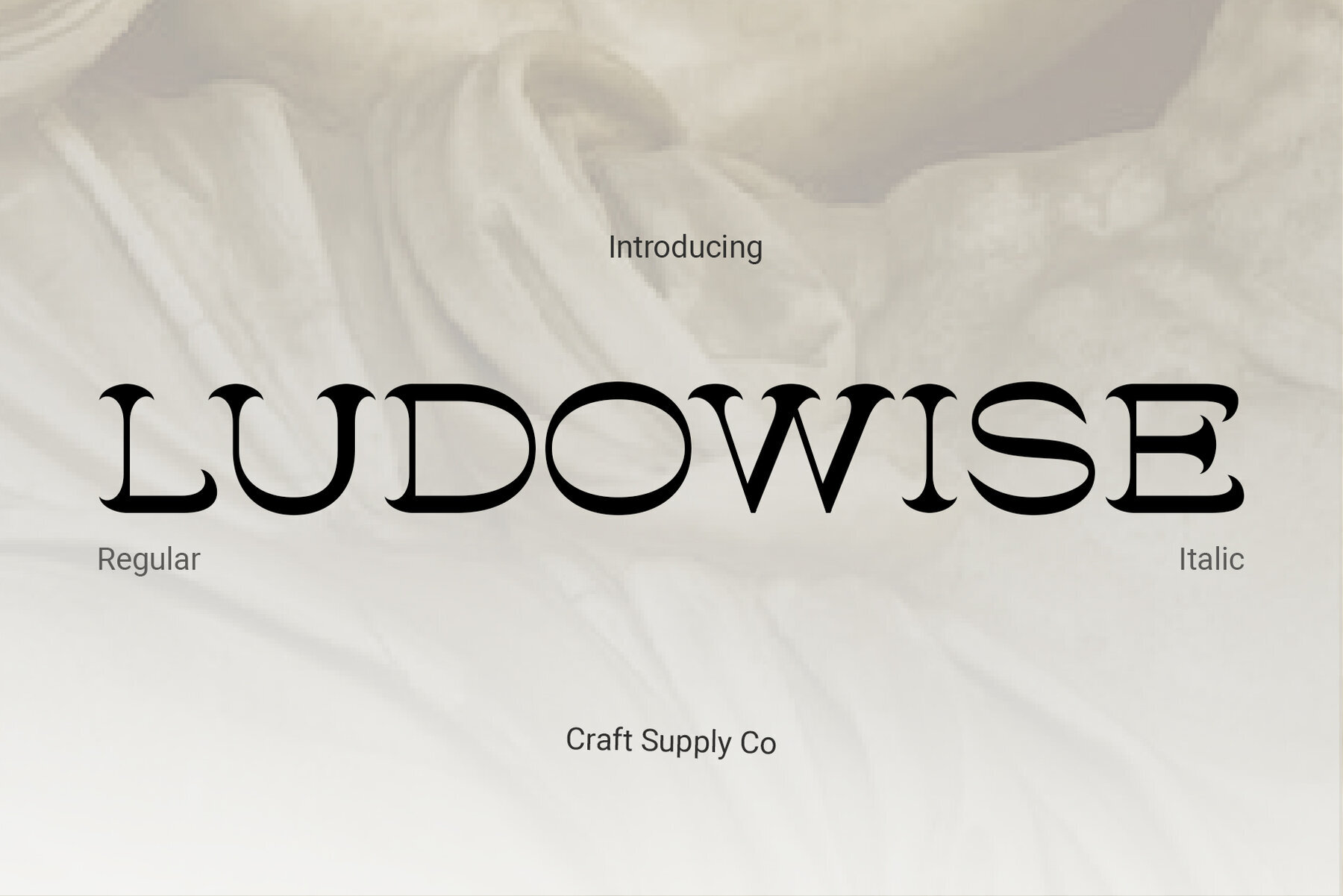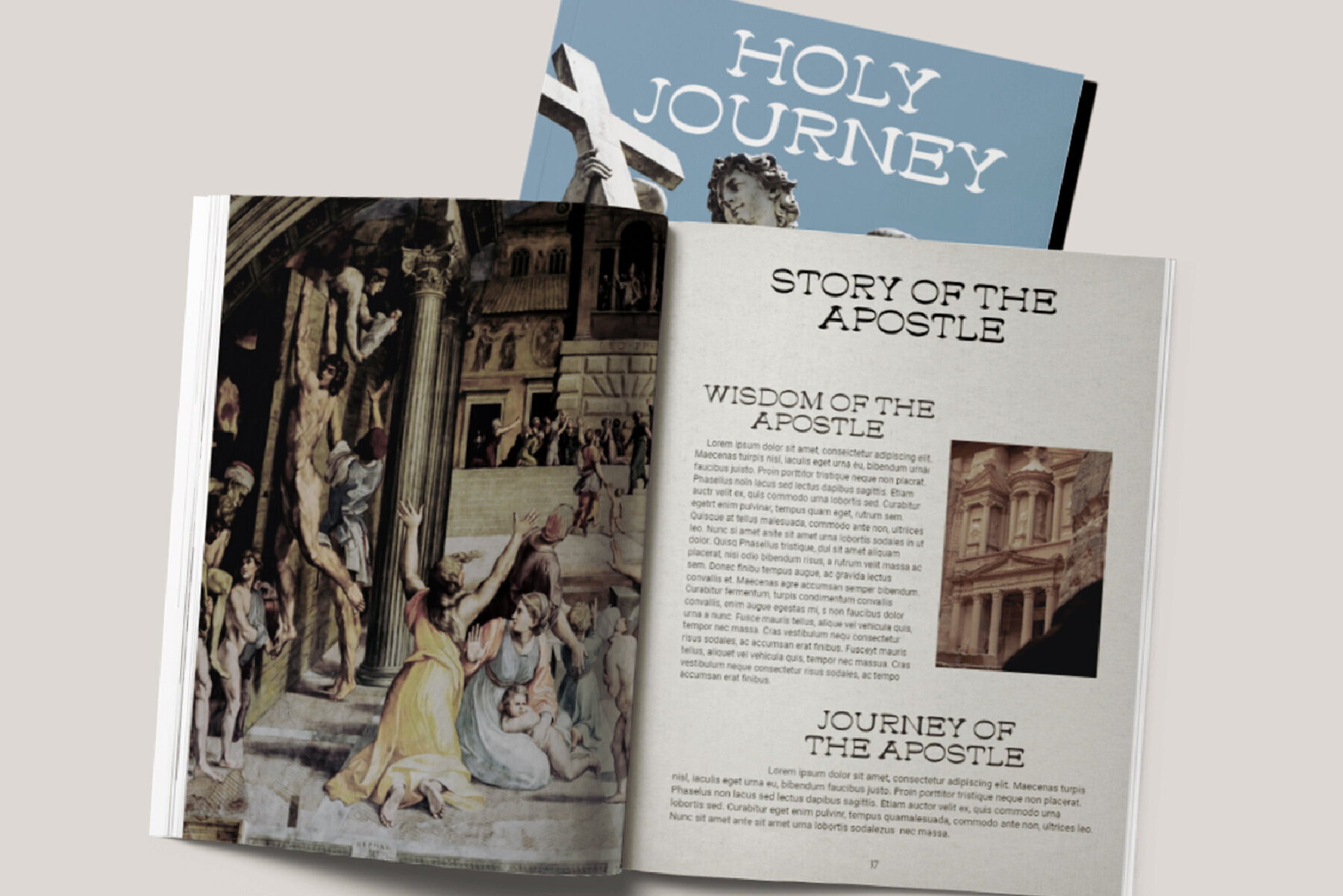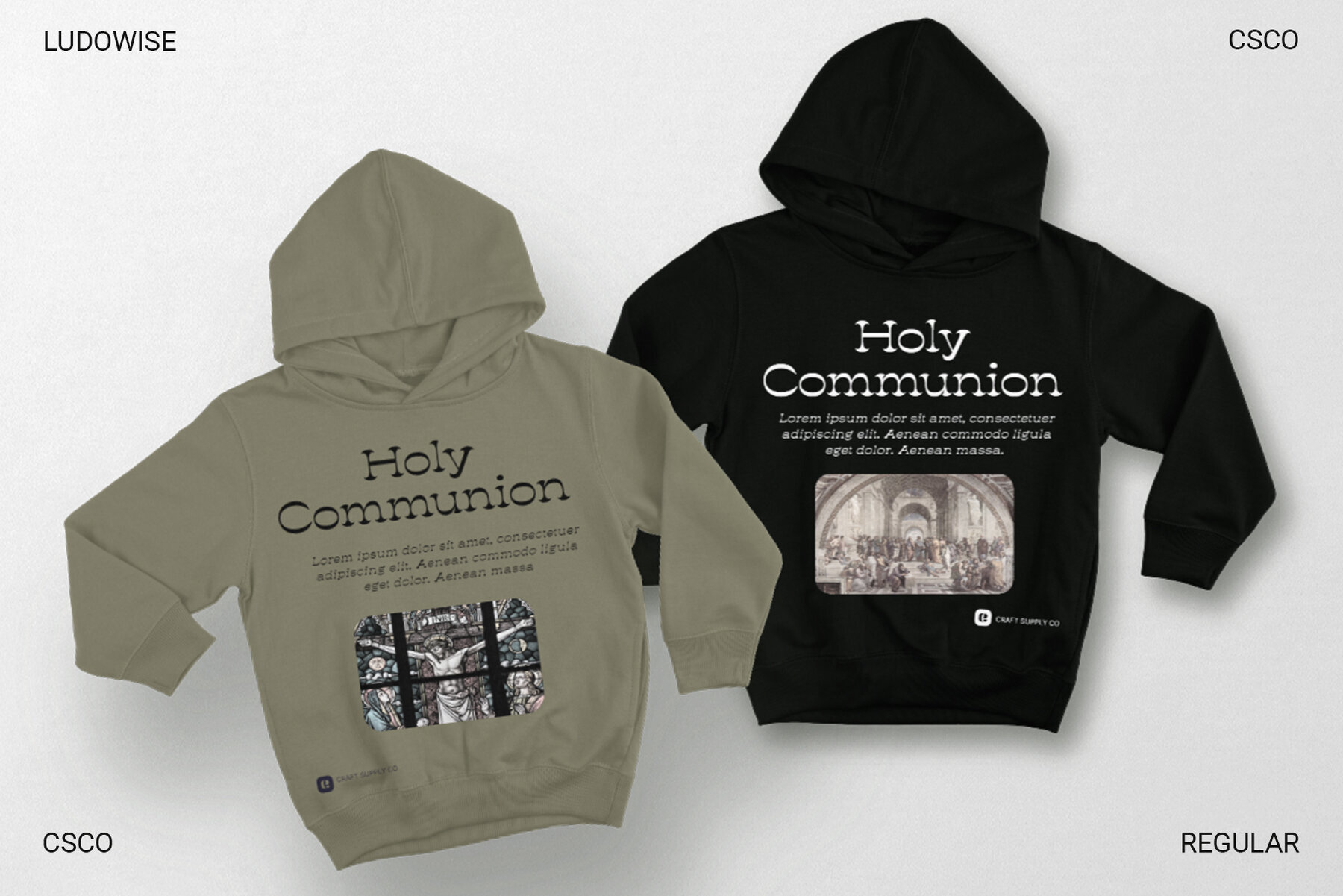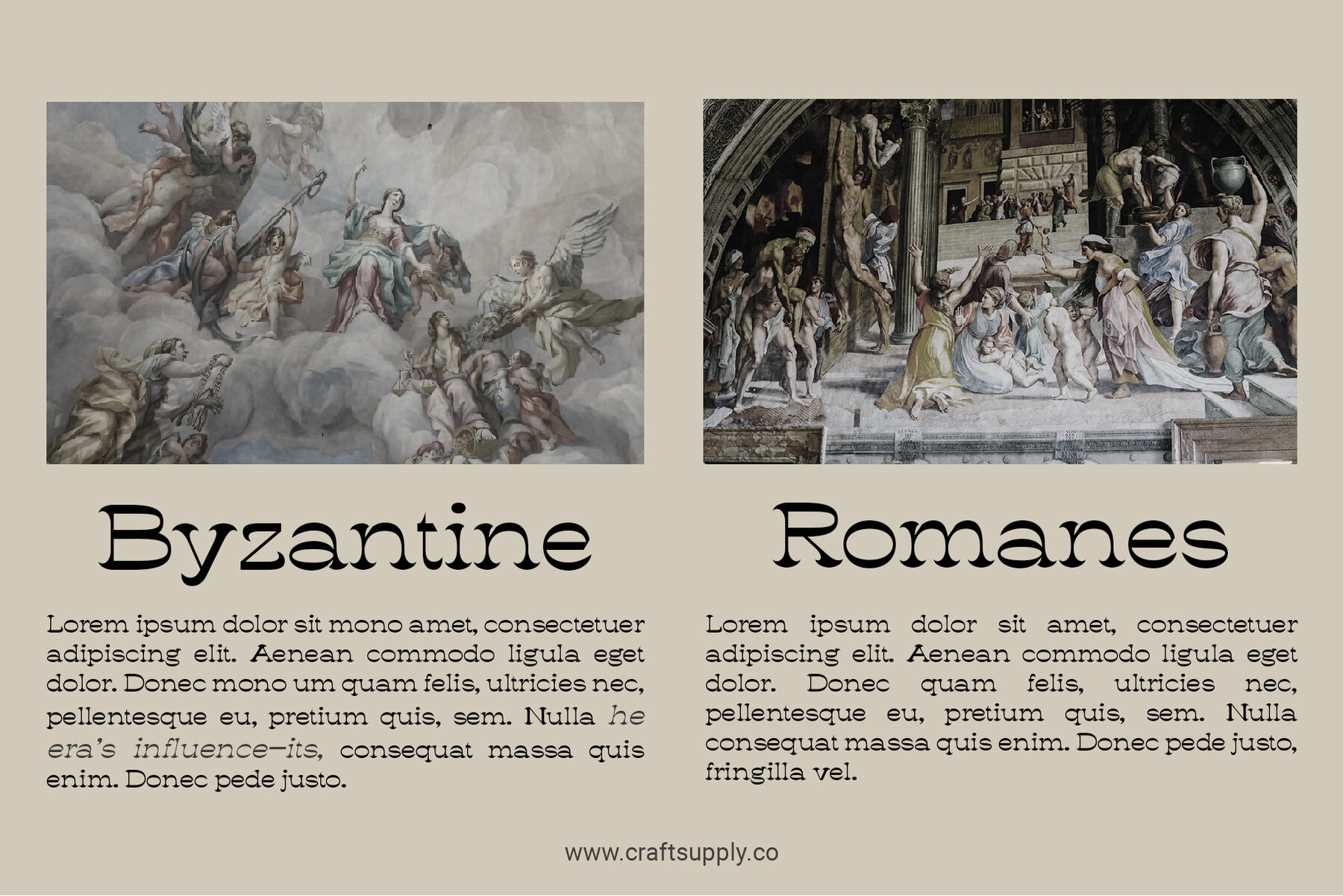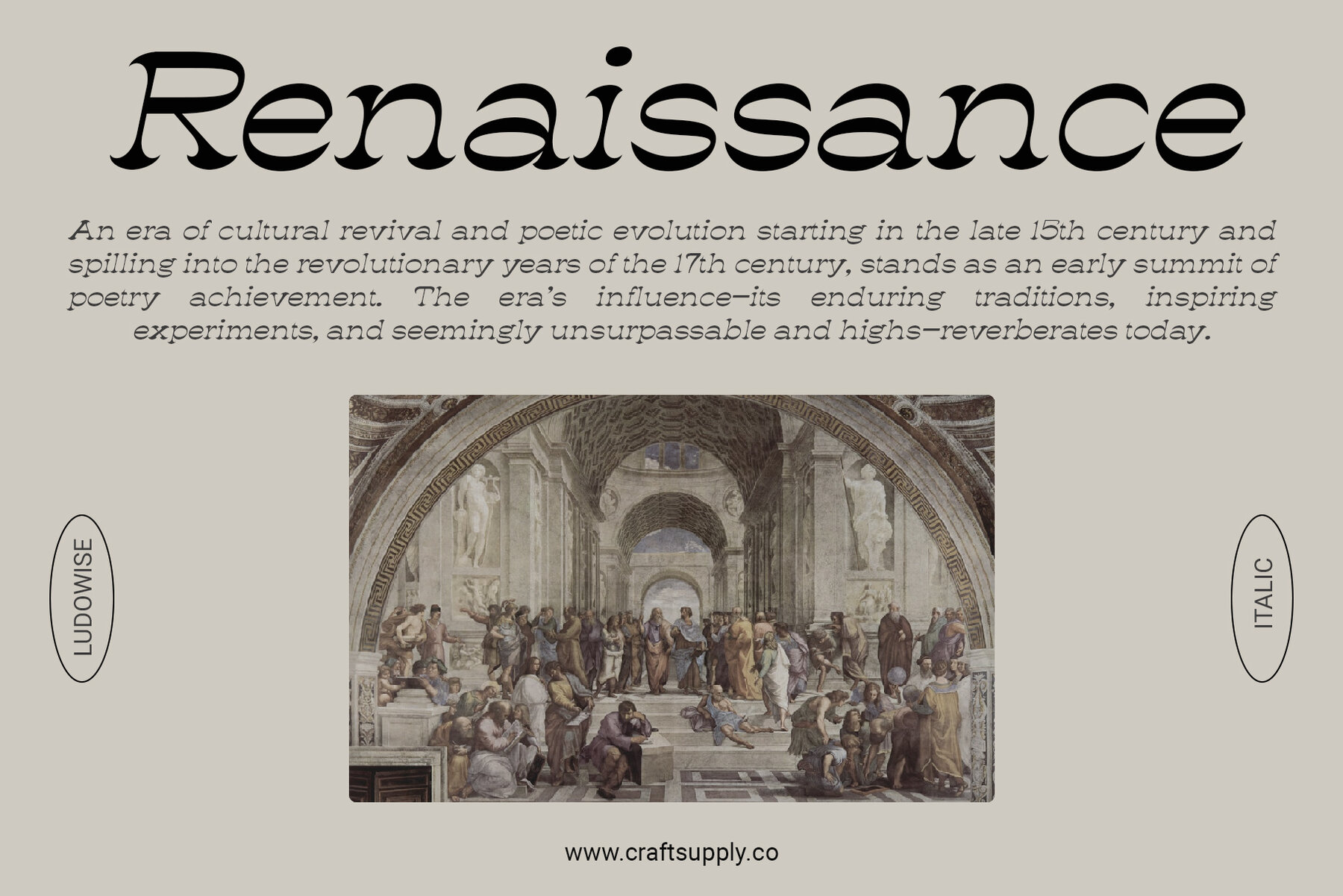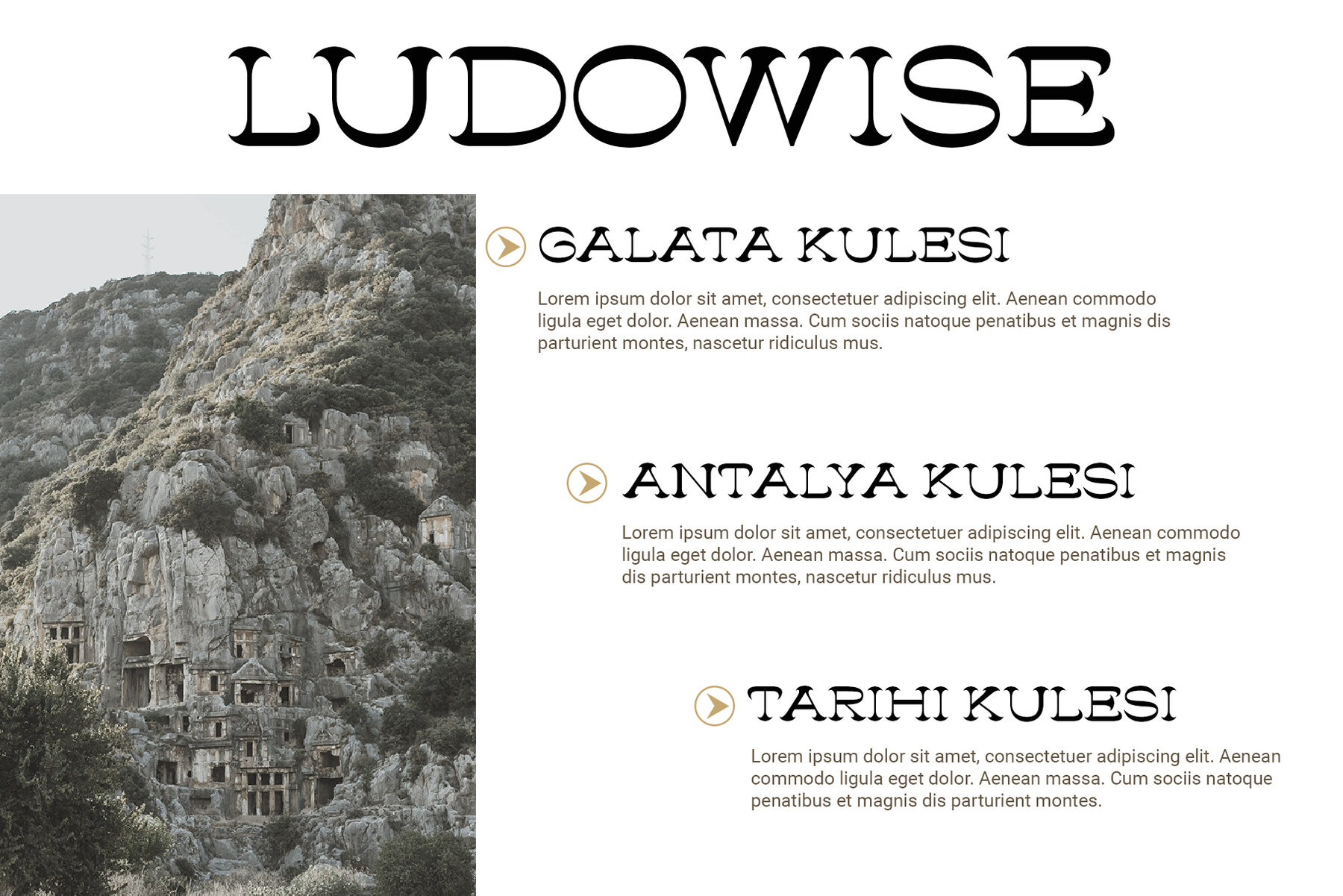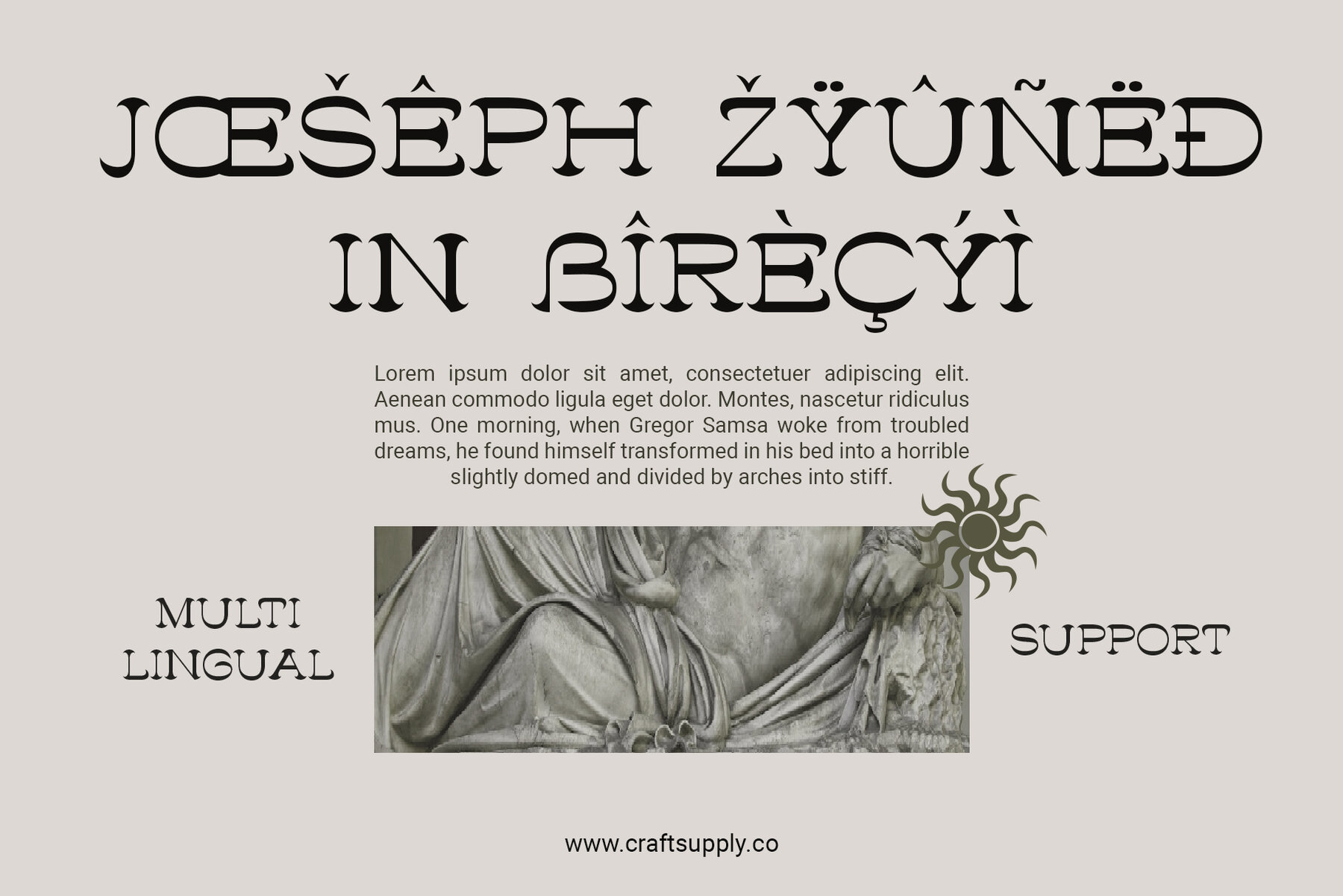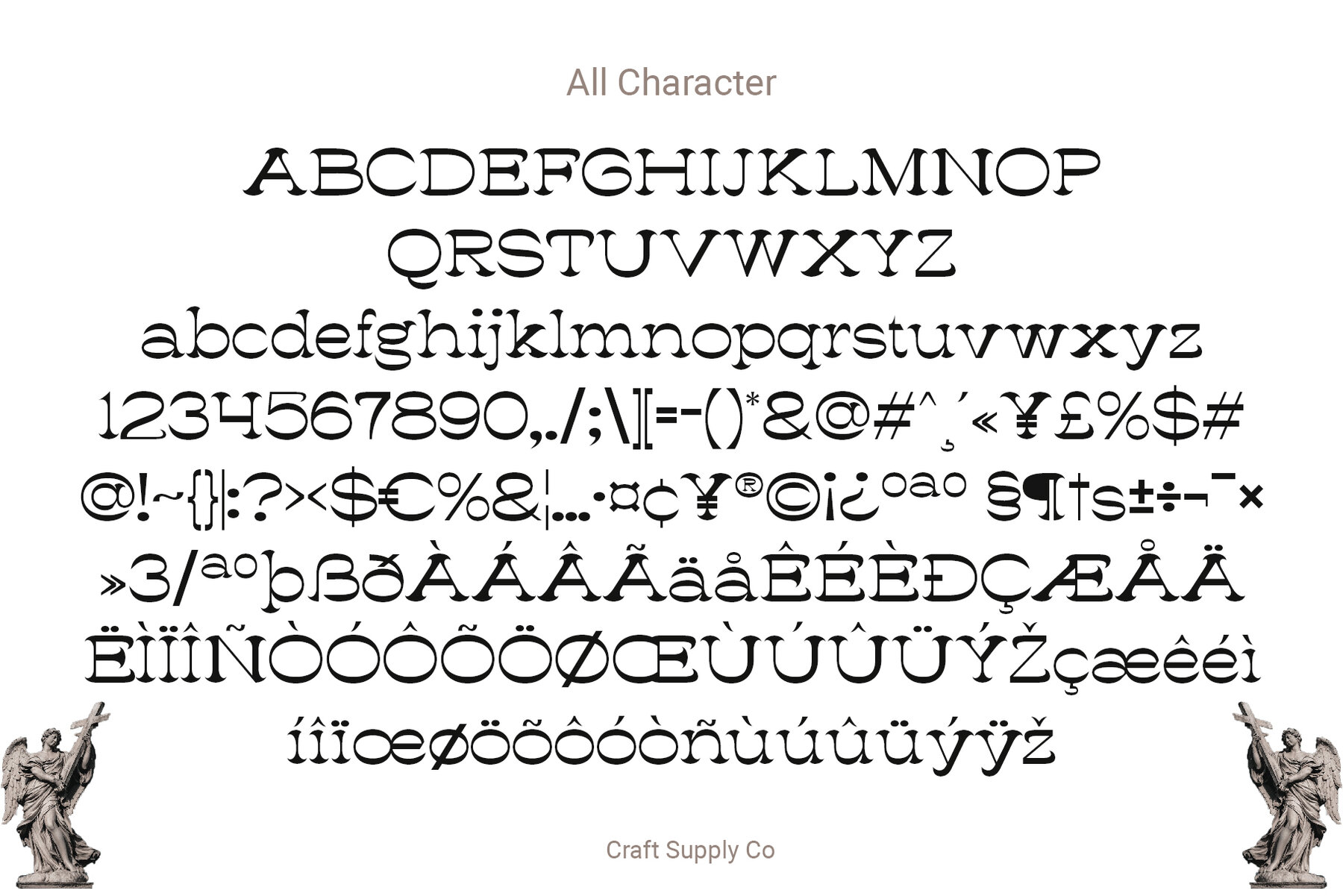
Ludowise Font
Introducing Ludowise – the contemporary serif typography for the modern world. Conceived by the renowned Craft Supply Co., this ground-breaking typeface revolutionizes design norms with its stimulating reverse contrast display. Here, the familiar thin strokes make way for thick, daring lines, crafting a unique look that attracts attention and breaks boundaries. Perfectly aligned for graphic designers and marketing firms, Ludowise is not just a typeface; it's an assertion of boldness and creativity.An Innovative Approach to Serif Typography: Ludowise by Craft Supply Co.